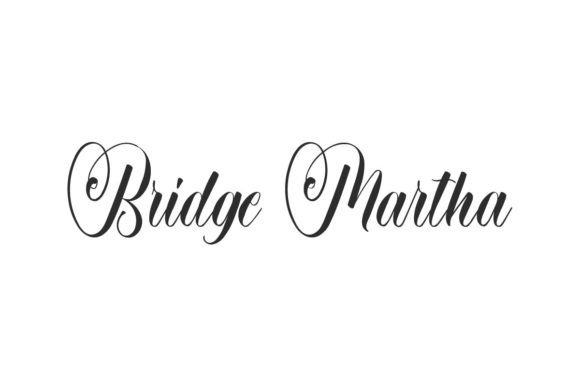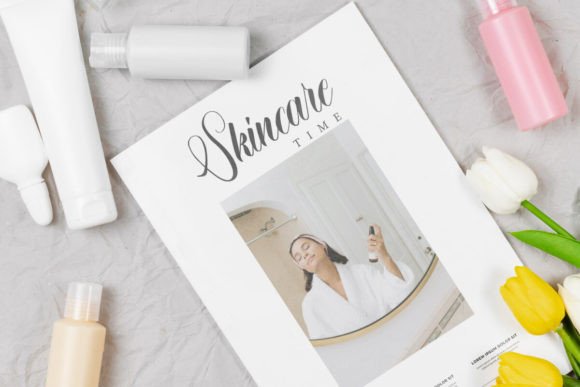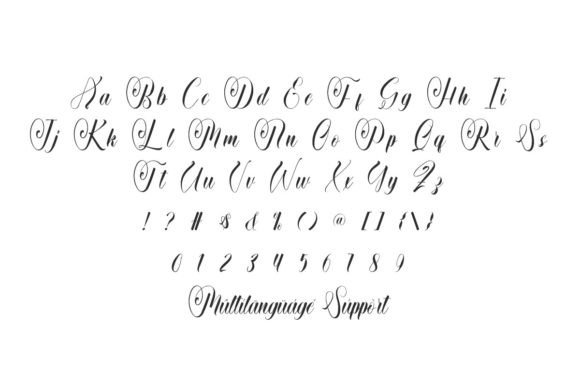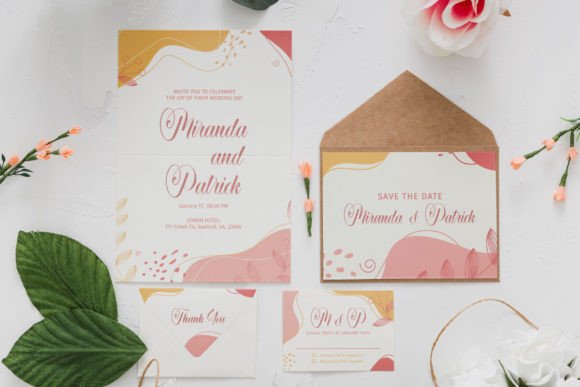
Bridge Martha Font
About the Bridge Martha Font
Unleash your creativity with Bridge Martha Font, a versatile font perfect for a wide range of applications. Bridge Martha Font is a stylish calligraphy style font with a beautiful curl brush. It exudes true elegance and easy to read that will add to the beauty of your designs, such as apps, brand logo, catalog, cover, invitation, label, quotes, stationery, title, website, and much more!
Bridge Martha’s elegant calligraphy style is ideally suited for headlines, short text blocks on invitations or stationery, and logos requiring a touch of refined sophistication. Its graceful curves work beautifully in branding for luxury goods, boutique businesses, or wedding-related materials. However, avoid using it for body text or lengthy paragraphs; its decorative nature compromises readability at smaller sizes.
The font’s inherent elegance pairs well with clean sans-serif fonts like Montserrat or Lato for a balanced contrast. For a more traditional feel, consider pairing it with a classic serif like Garamond or Playfair Display. These pairings provide strong visual support, allowing Bridge Martha to shine as a statement element.
Bridge Martha projects a sophisticated and feminine personality, best suited for brands emphasizing quality, craftsmanship, or romantic ideals. Its refined aesthetic is not appropriate for contexts requiring a modern, minimalist, or playful feel.
Bridge Martha Font Usage Examples
Bridge Martha Font Example